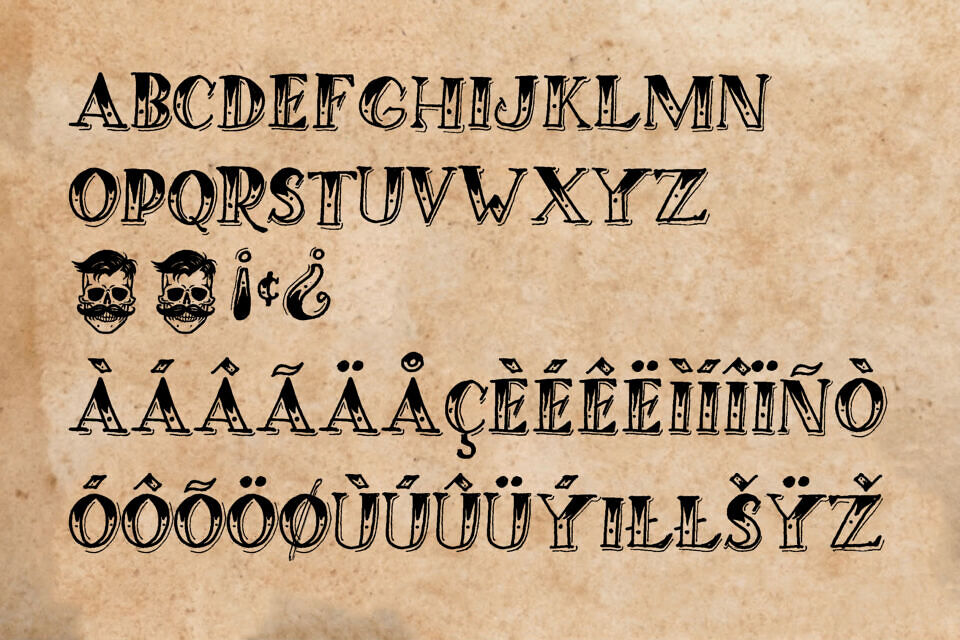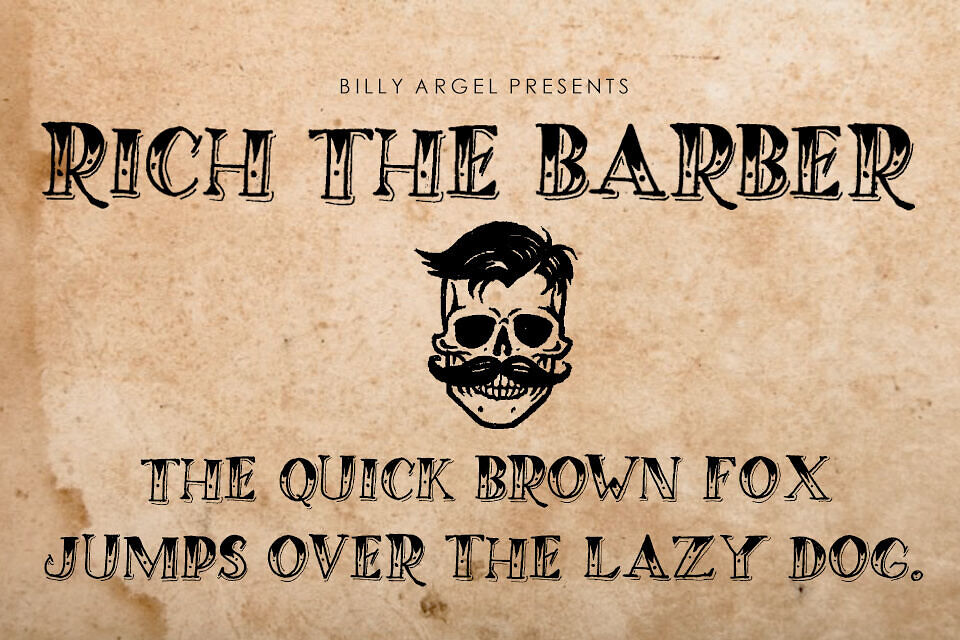
Rich The Barber Font
Rich The Barber is a bold decorative typeface with a vintage, hand-crafted aesthetic. Its sharp serifs, distressed texture, and dynamic strokes create a rugged yet artistic look, inspired by classic barbershop signage.
The exaggerated letterforms and varied line thickness add strong visual impact, making it ideal for logos, posters, and branding. With its expressive, retro style and eye-catching presence, this font delivers a perfect blend of nostalgia and modern creativity for standout designs.